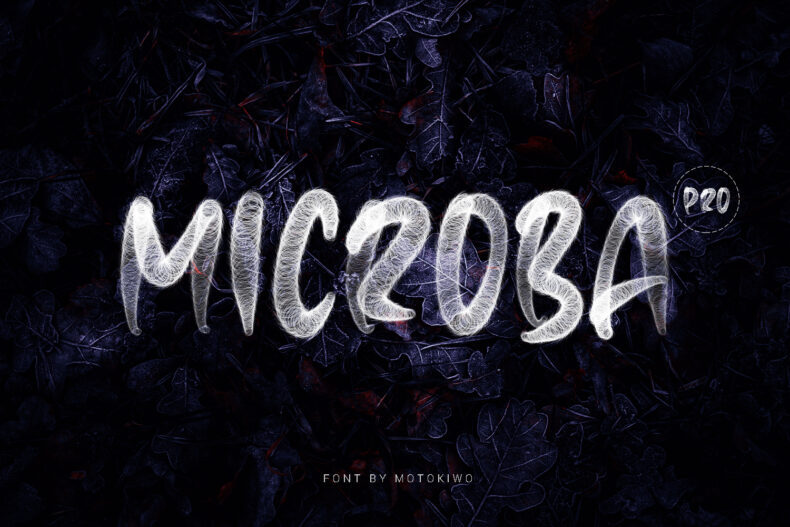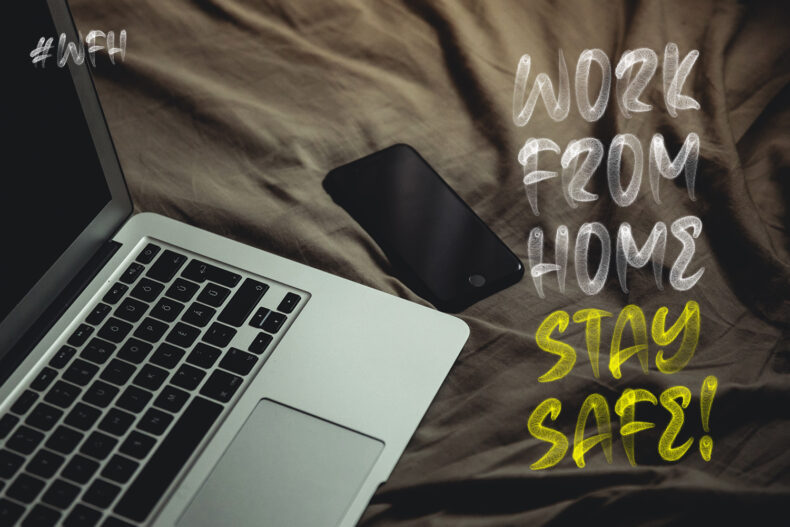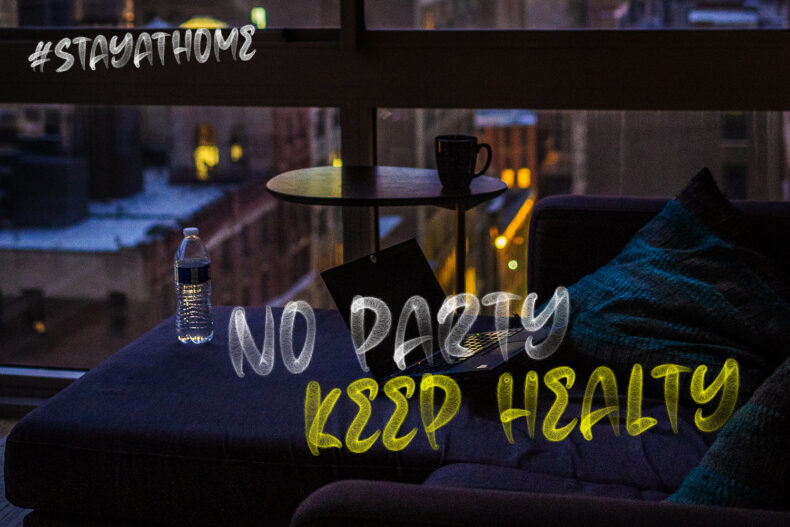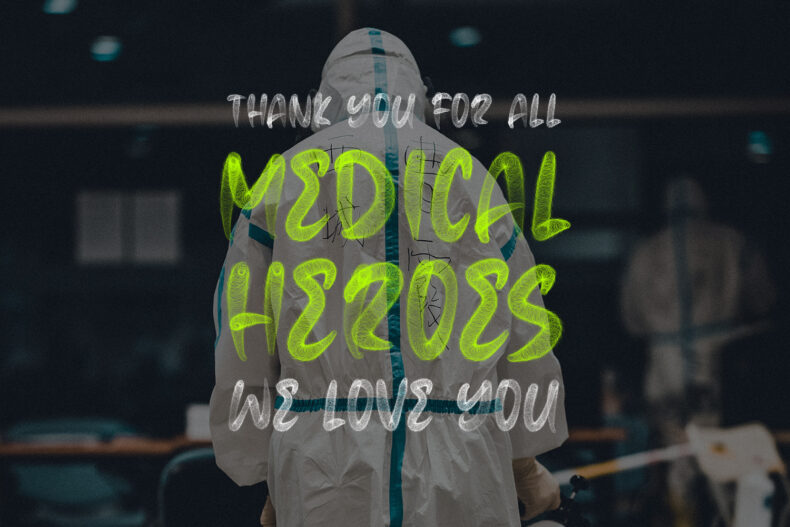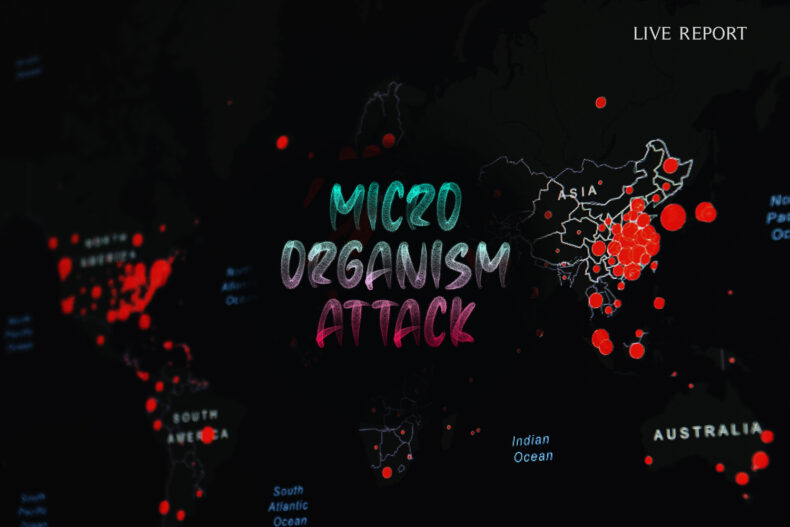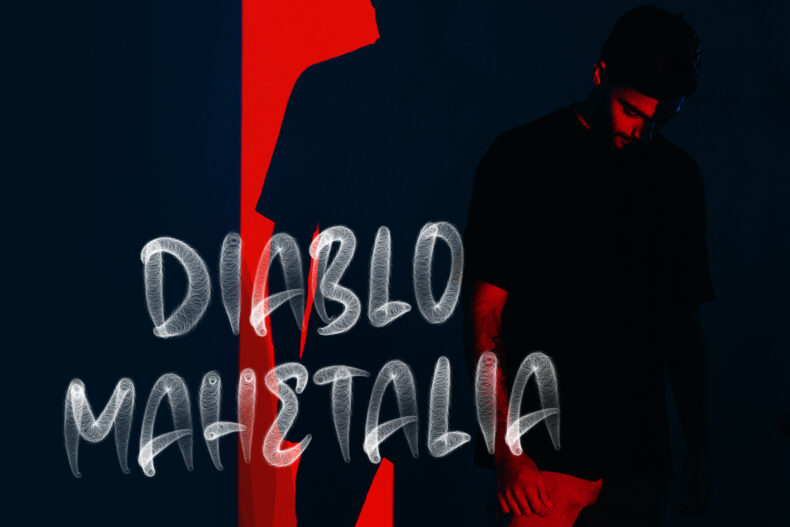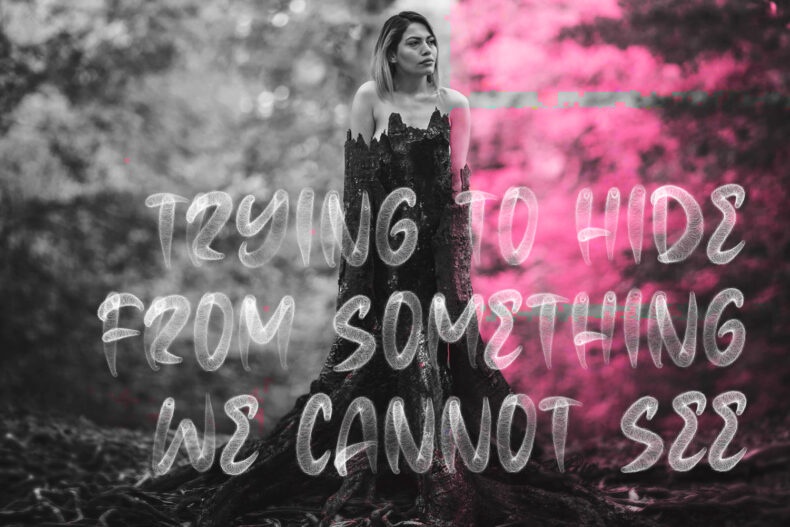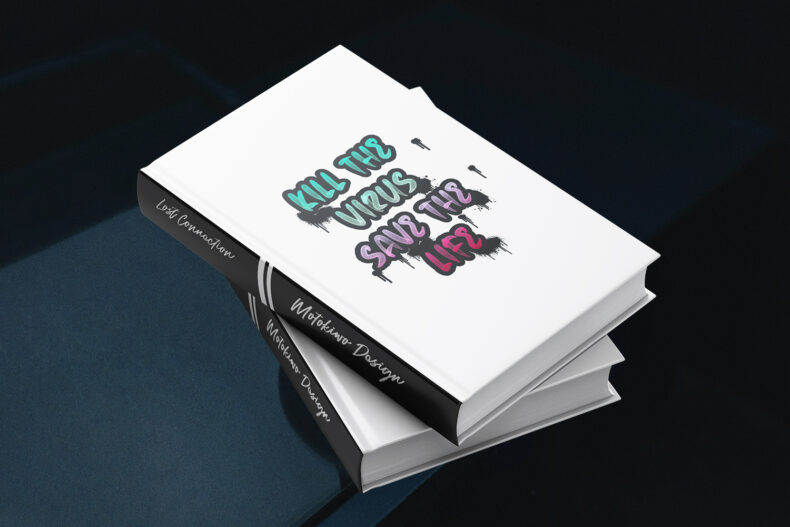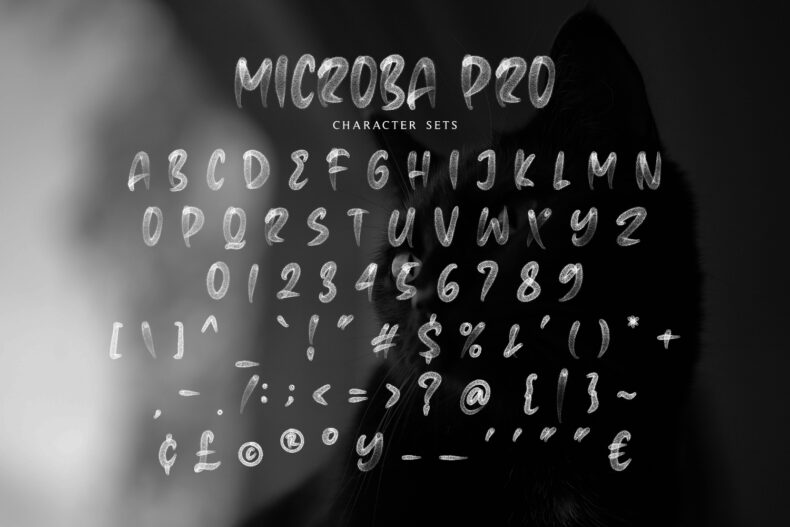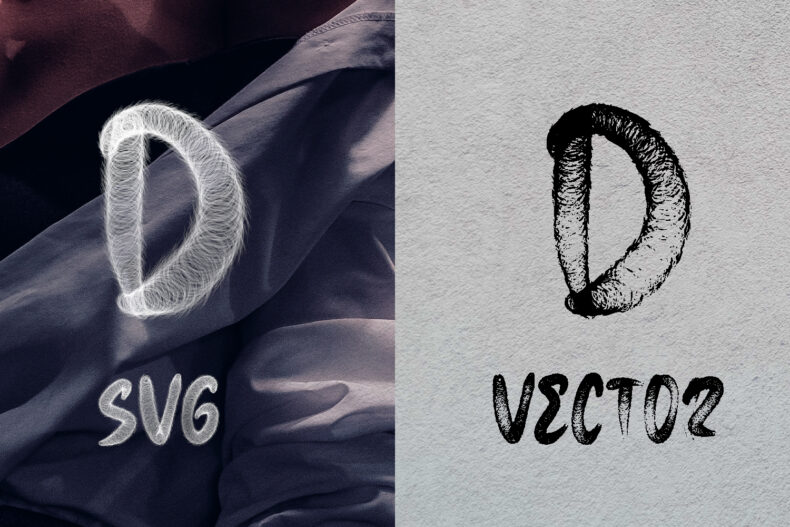
Microba Pro is an all-caps display font with brush forms reminiscent of microorganisms and worms. The package includes SVG and vector OTF versions.
Microba Pro turns an unusual organic texture into display lettering. Its hollow, worm-like character offers a distinctive direction for experimental titles, science-inspired graphics, and eerie poster concepts. It includes capitals, numbers, and punctuation.